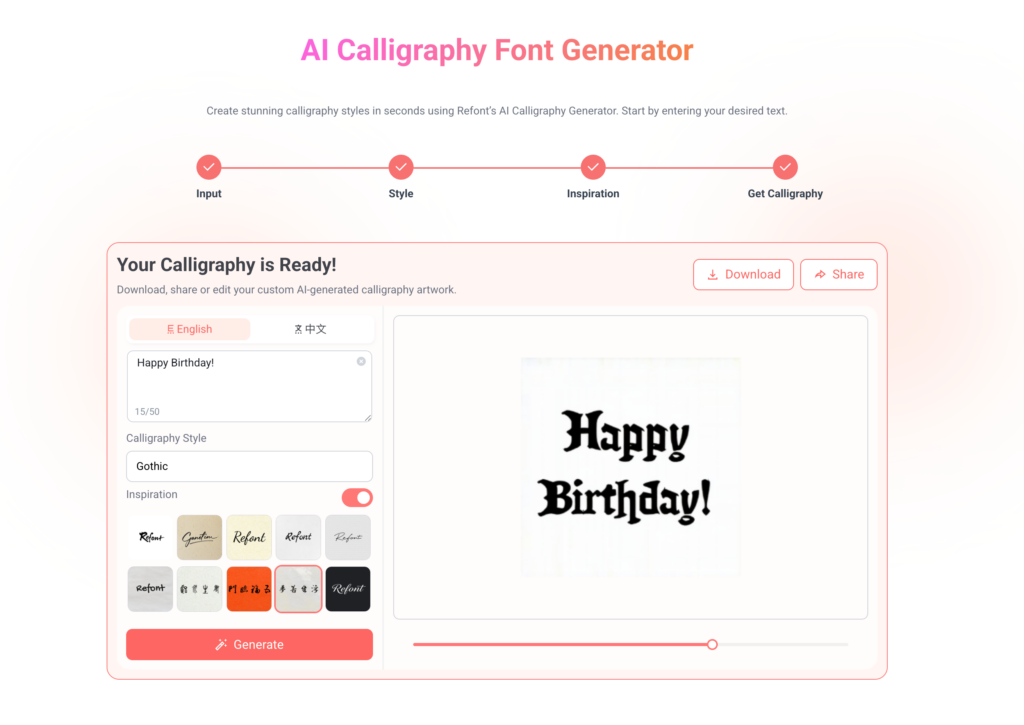
Birthdays are about making someone feel loved, and a cool font can turn a plain “Happy Birthday” into something they’ll remember. Whether you’re crafting a card, designing a party invite, or posting on social media, a one-of-a-kind font sets the perfect tone. That’s where Refont comes in—a super easy, AI-powered tool that lets you create custom birthday fonts that really pop.
Why Birthday Font Design Matters?
A great birthday celebration isn’t just about the cake or gifts—it’s about the details. The right font sets the tone, whether you’re going for playful, elegant, or totally unique. Here’s why custom birthday fonts make all the difference:
- Personality Over Generic Text : Standard "Happy Birthday" fonts blend into the background. A custom font (like those from Refont) turns your message into a visual centerpiece—matching the theme, mood, or even the birthday person’s style.
- Emotion in Every Curve : Handwritten scripts feel warm and personal, while bold fonts shout excitement. With AI-powered tools, you can tweak fonts to evoke exactly the feeling you want.
- Beyond Just Words : Birthday fonts aren’t just for cards—use them on cake toppers, social media graphics, party banners , or custom gifts. Consistency in design elevates the entire celebration.
How to Create a Custom Birthday Font ?
It’s quick and easy to make a font that’s as special as the birthday you’re celebrating. Here’s how:
Step 2. Type Your Birthday Message
Try something like “Happy Birthday, Refont!” or “Cheers to 18!”
Step 3. Pick a Style
Browse options like brush script, playful cartoon, cursive, or classic calligraphy.
Step 4. Generate and Preview
Hit “Generate” to see your custom font in action. Play around until it feels just right.
Step 5. Download and Use
Save your font as an image or file to use in:
- Handmade greeting cards
- Party invitations
- Cake decorations
- Social media posts
- Video thumbnails
Fun Ideas for Your Birthday Font
Here are a few ways to bring your custom font to life:
- DIY Cards : Print your font and add it to a homemade card for a heartfelt touch.
- Social Media Vibes : Pair your font with a favorite photo for a standout Instagram or Facebook post.
- Business Greetings : If you’re a small business, send clients birthday wishes with a professional, personalized style.
Style Tips for Every Celebration
Match your font to the birthday vibe:
| Occasion | Suggested Style |
|---|---|
| Kids’ Birthdays | Playful balloon or cartoon lettering |
| Her Special Day | Cute handwritten or soft cursive |
| Professional Greetings | Clean, minimalist, or elegant typeface |
| Parents or Elders | Classic brush or traditional calligraphy |
Make Every Birthday Unforgettable